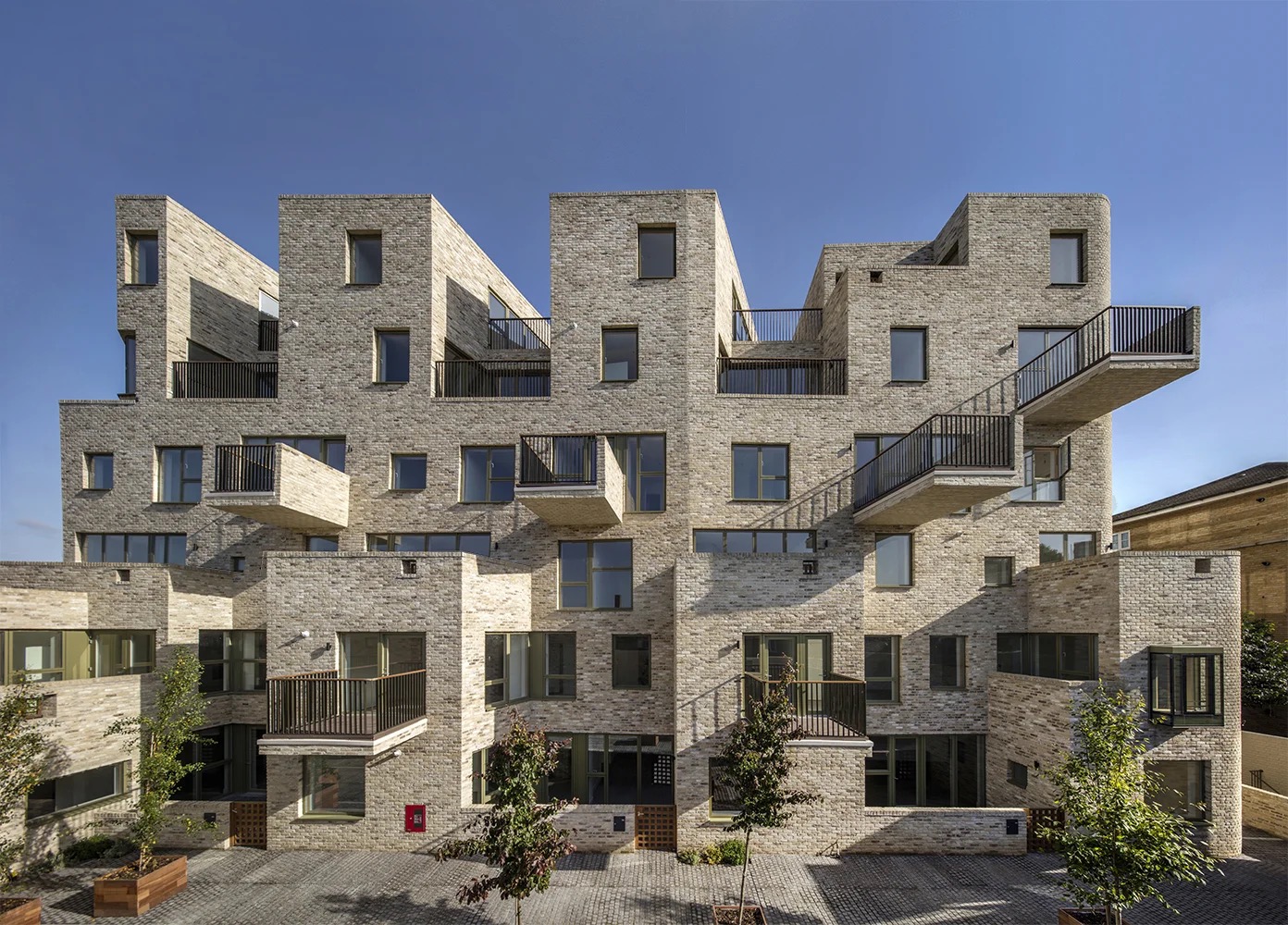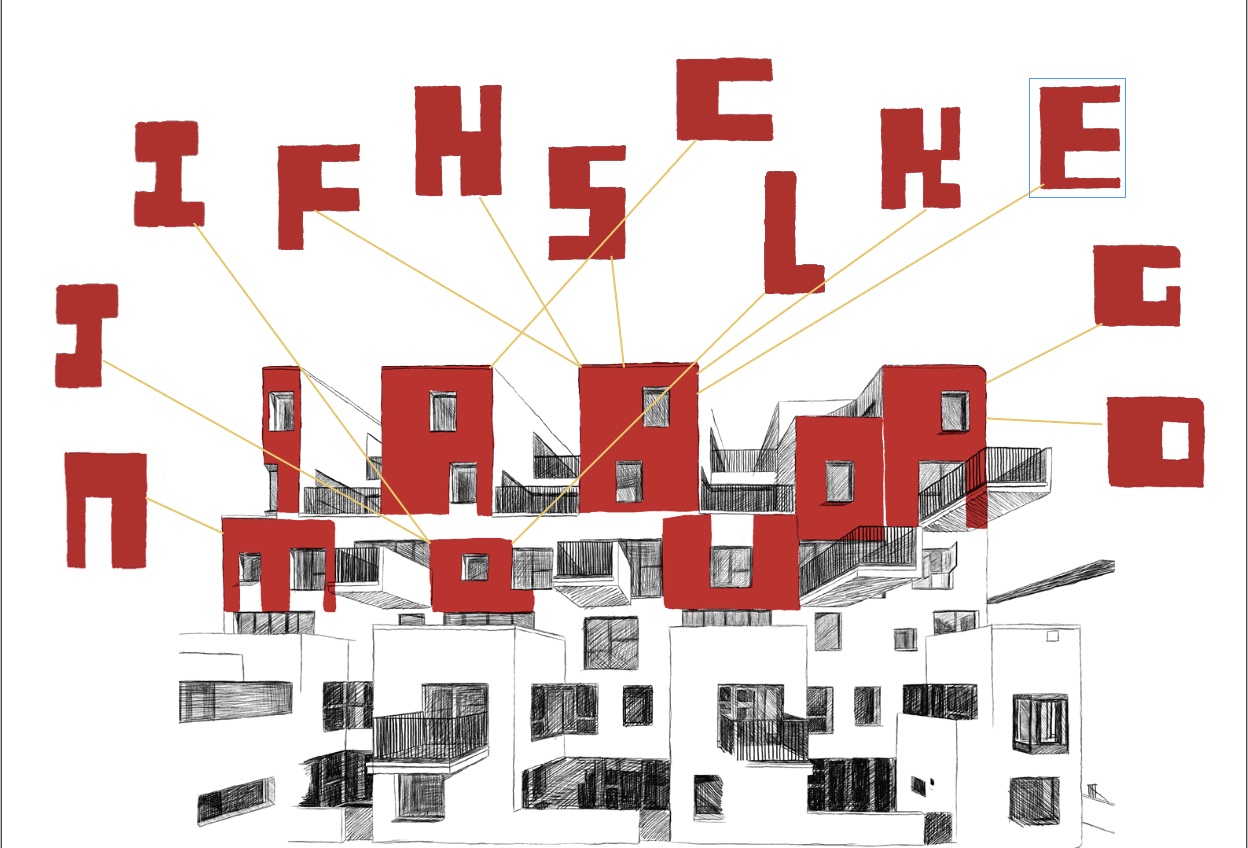
This font named "Ordered Chaos" deeply deconstructs the postmodern architectural language of 95 Peckham Rd. The design inspiration comes from Peter Barber's blocky reorganization of the brick facade. By transforming the irregular window arrangement into the negative space of the font, it presents a kind of "ordered chaos". The stroke structure imitates the geometric misalignment and heavy texture of architecture, and uses modular logic to balance artistic expression and readability, aiming to explore the symbiotic relationship between urban space and textual form.